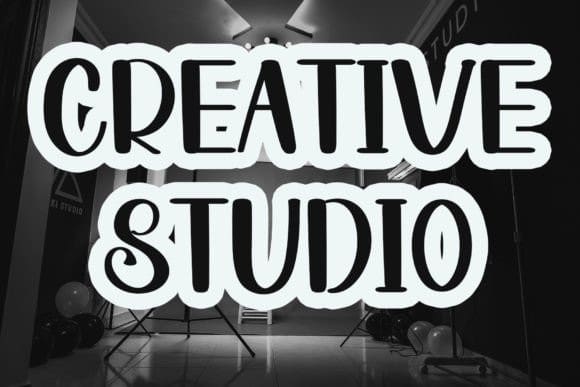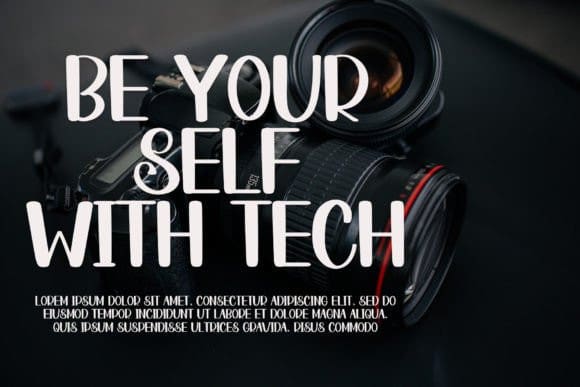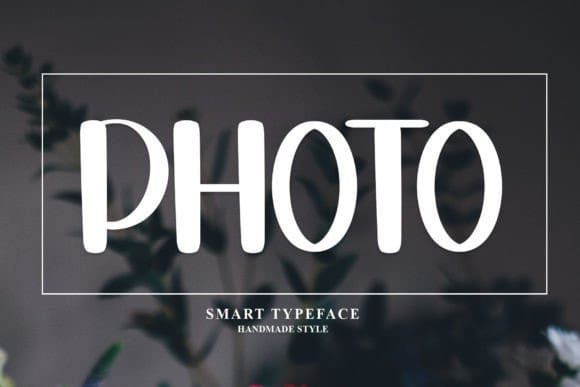
Photo Display Font
Photo Display Font is a cute handwritten font with a fun and quirky personality. Its irregular and playful letterforms create a sense of whimsy and individuality, making it perfect for designs that require a touch of uniqueness. Its natural, handwritten style adds a charming and personal feel to any project.